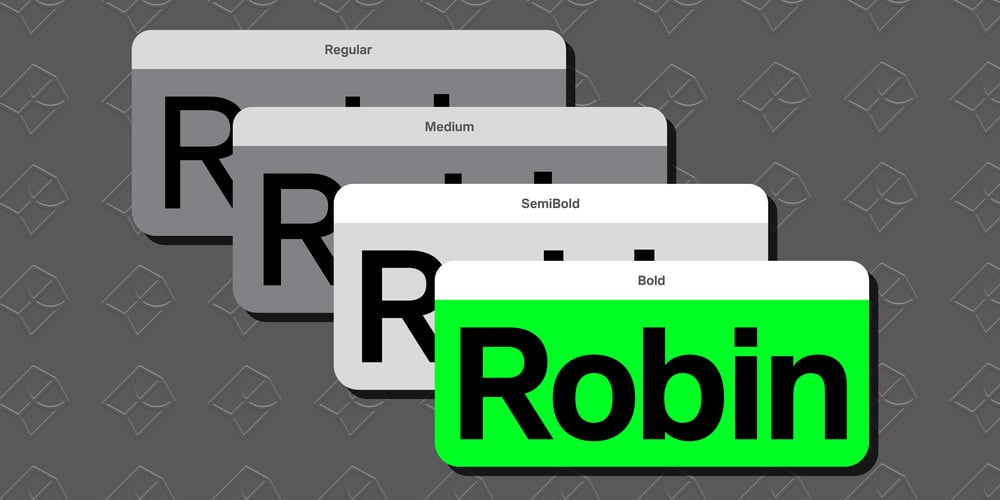
Robin Font Family was designed by Colophon Foundry and published by Colophon Foundry. Robin contains 8 styles and family package options. An ode to, and potential replacement for, Arial, Robin draws on the ubiquitous design of the modern Sans-Serif to encapsulate a pared-back aesthetic that feels familiar yet distinctive. Certain letterforms, such as the «a» and «t», take their geometries and proportions from Arial, but have been updated to improve balance and consistency.Arial’s ever growing popularity and usage has led to it being referenced as a benchmark for neutrality. Named after Robin Nicholas, one of the designers of Arial in 1982, Robin looks to build on this neutral tone, allowing for further flexibility and accented character. As such, the typeface uses OpenType features to convey the same neutral aesthetic in a variety of guises:— Alternate curved vs. straight forms, such as «R» and «Q»— Square vs. round dots on «i» and «j» and punctuation (. , “ ” ! ?)Further features include a set of icons or “WingDings”. Each character (A through Z) is replaced with a re-imagining of the ubiquitous “WingDings” font sets, offering a contemporary take on the iconography in a paired back, neutral aesthetic to match Robin’s design. Each icon is supplied in two states: A default outlined state and a further filled variant and can either be manually selected or activated through replacement mode: where words are replaced through typing a specific string e.g. :smiling: